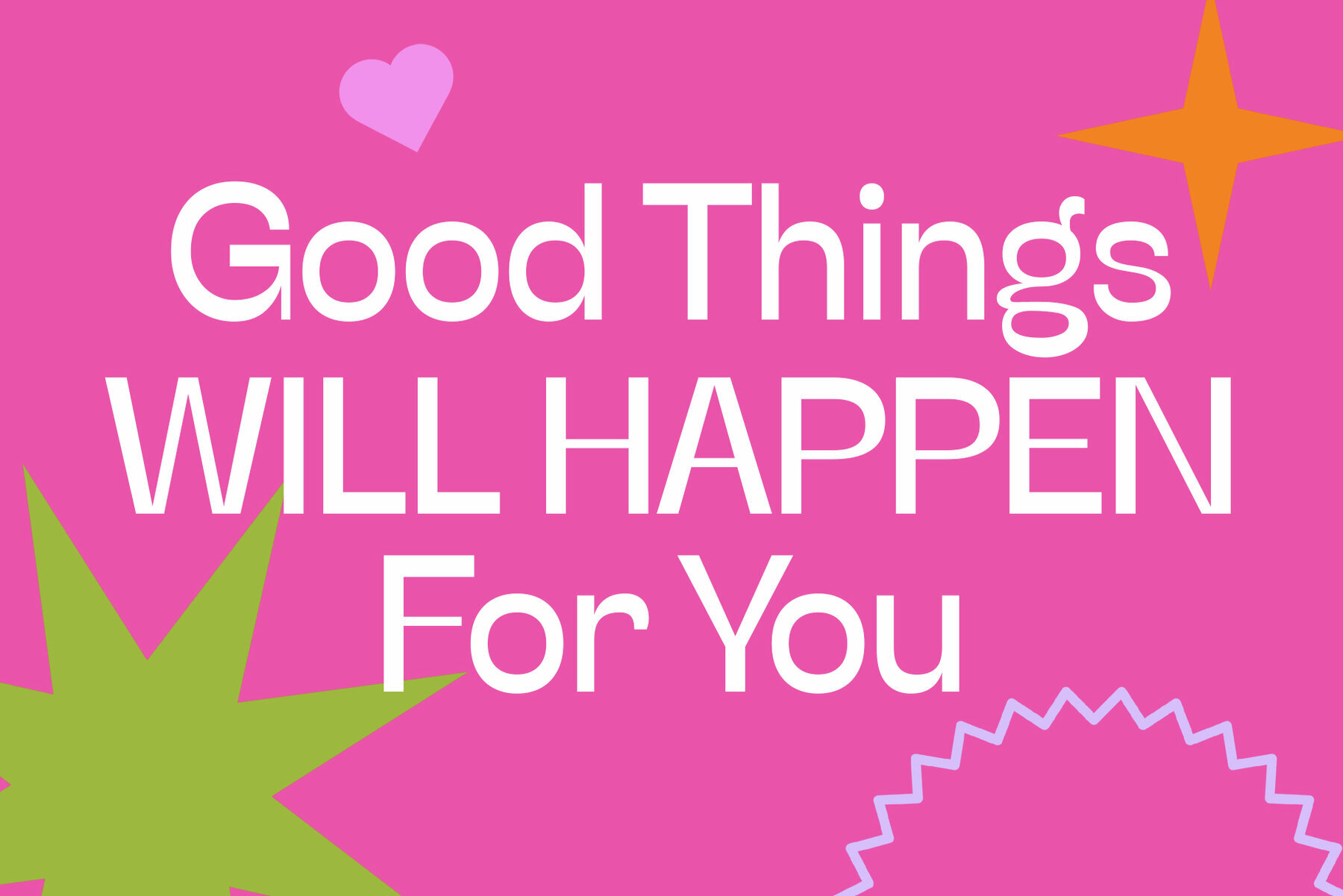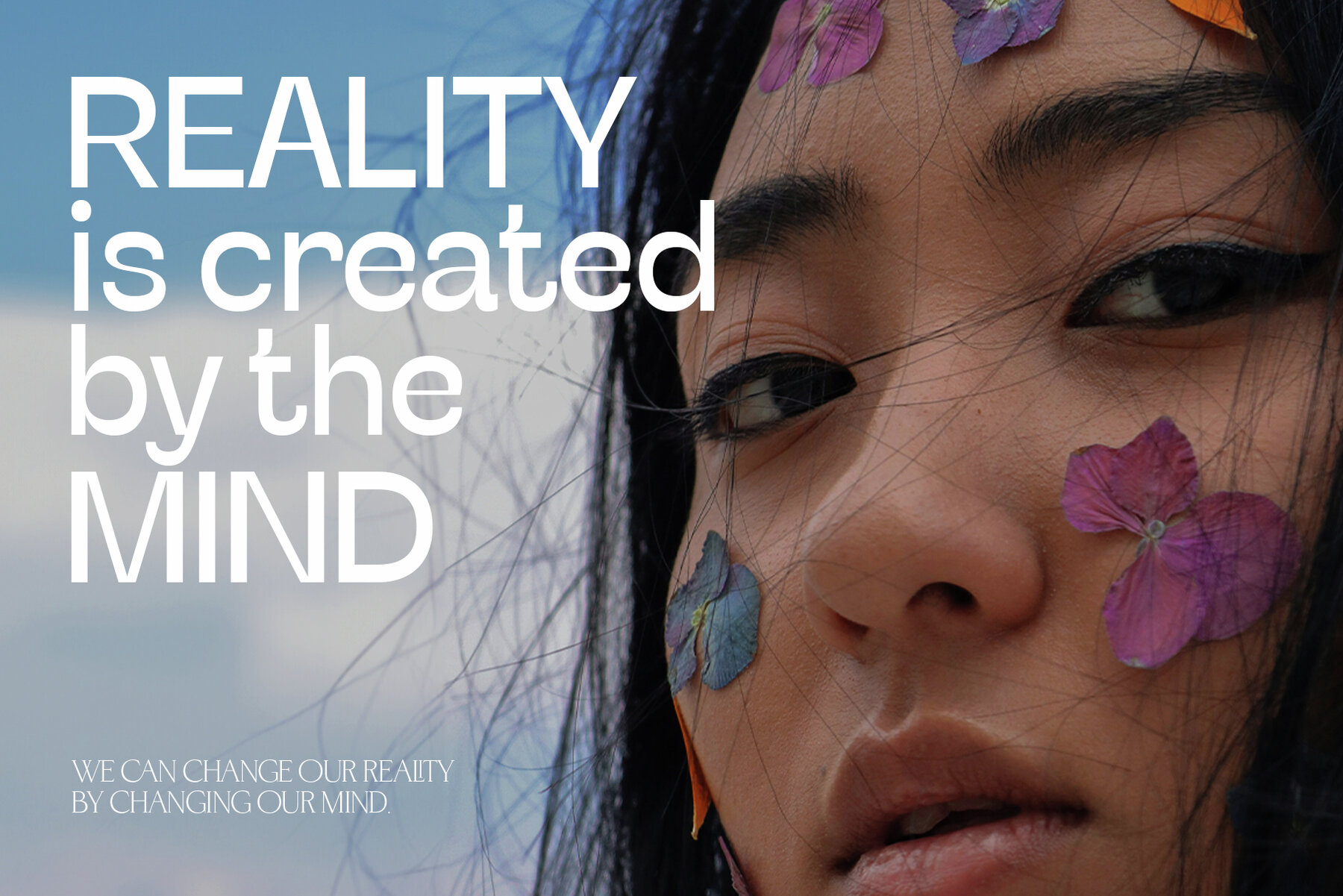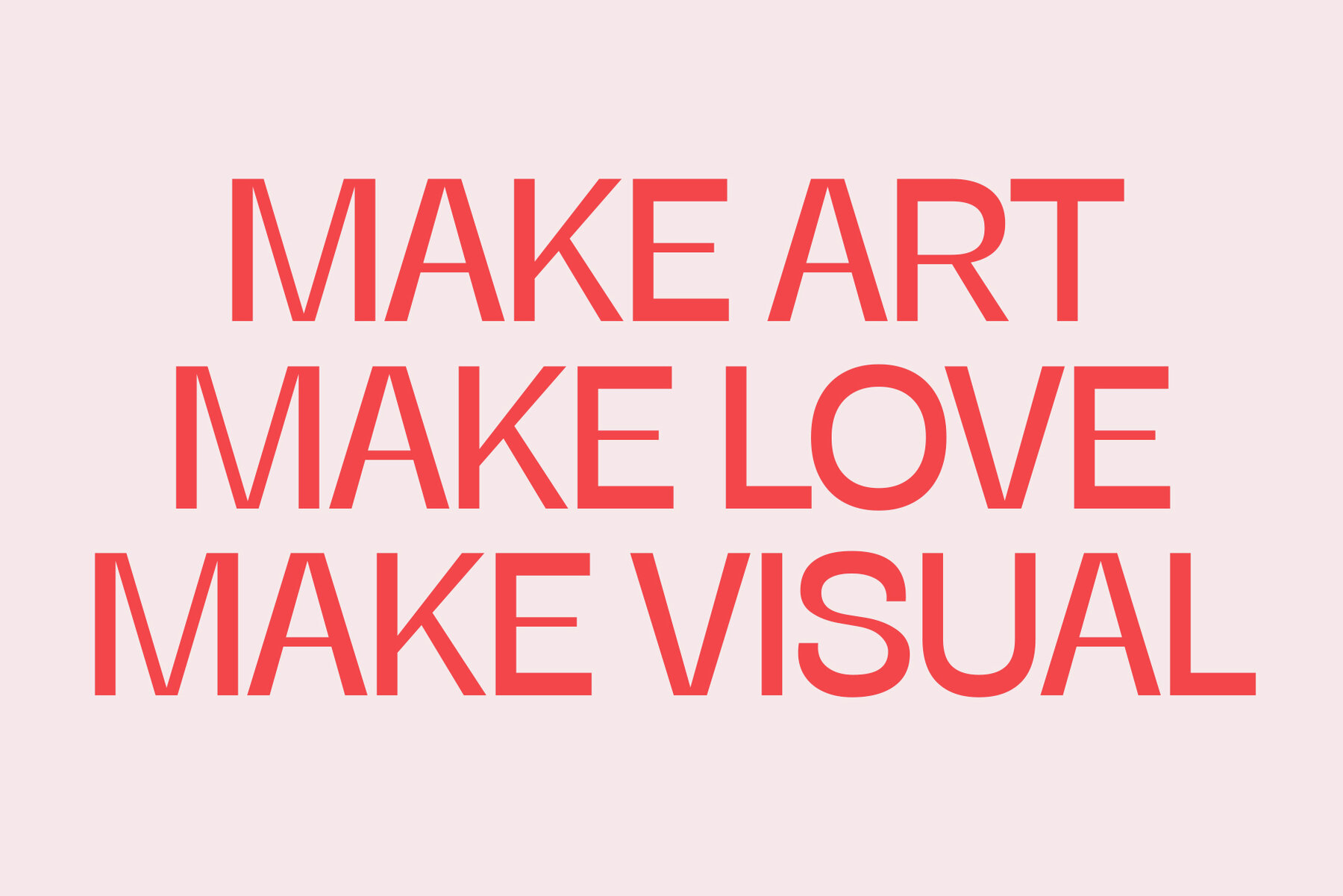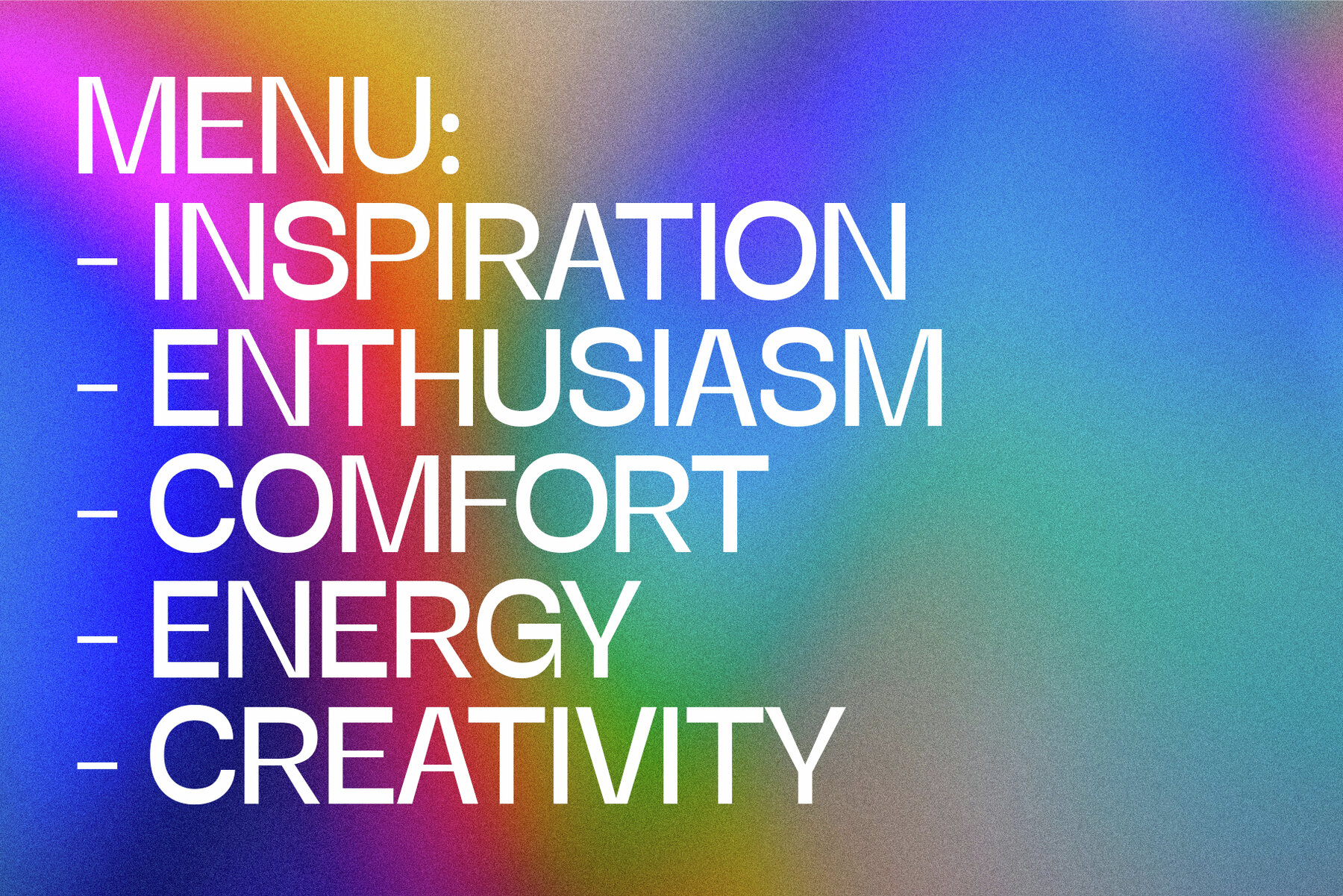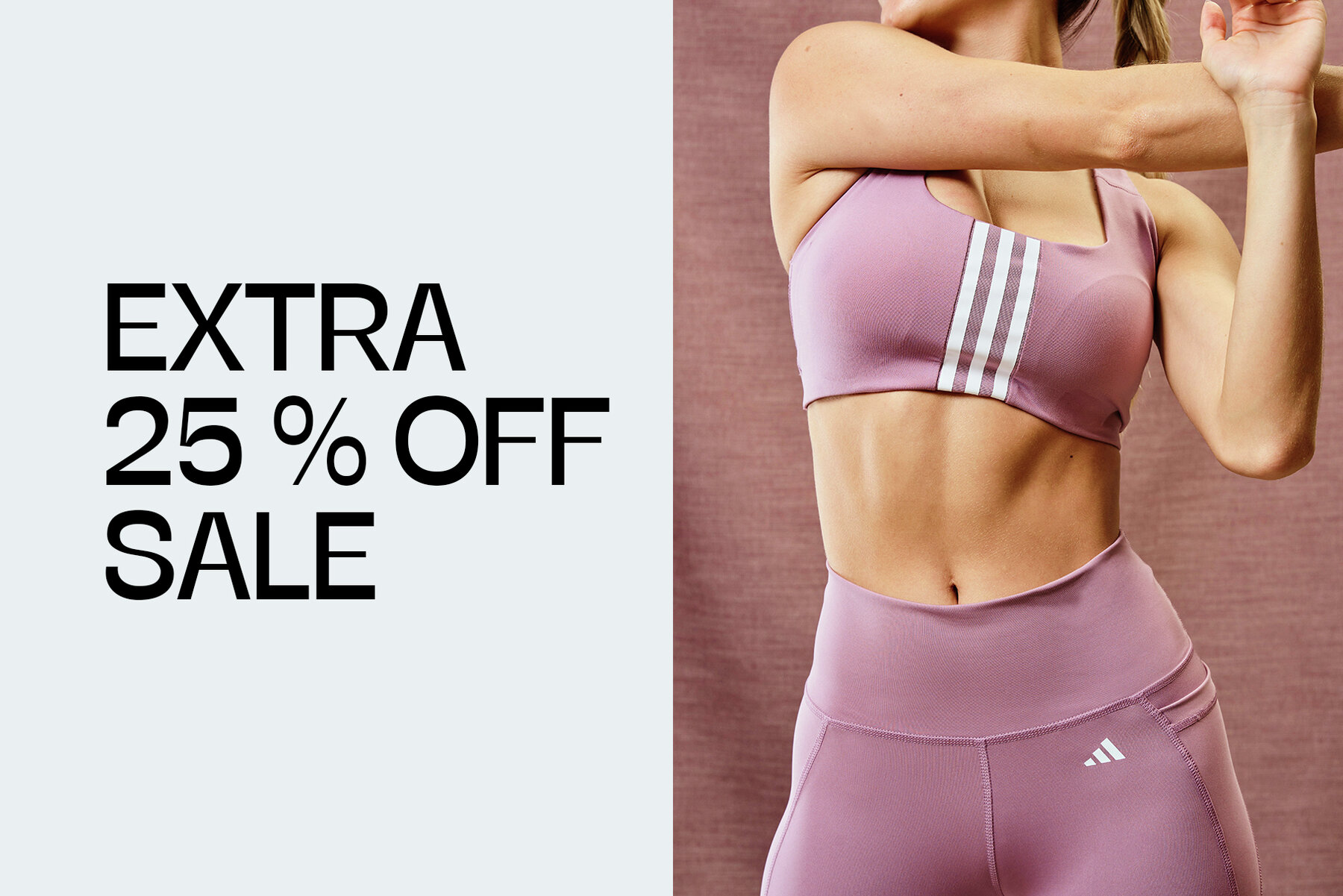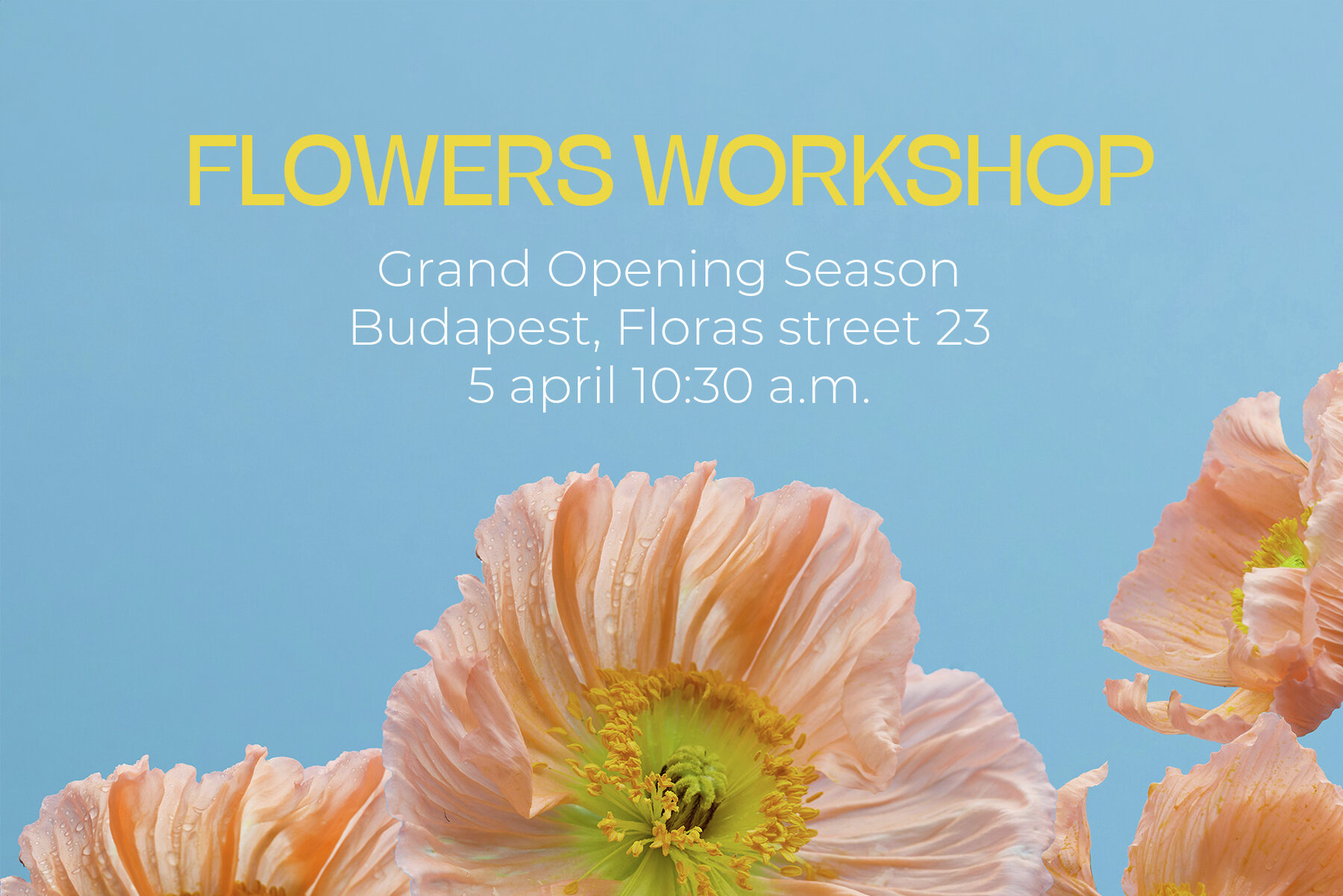
Better Place Font
Better Place - Contrast Serif Font by Daria Cherniackova
This versatile contrast serif font adds elegance and uniqueness to your projects, from logos and invitations to packaging and home decor. Ideal for creating wedding cards, birthday cards, holiday gifts, party decorations, and more. The font supports multiple languages, making it suitable for a worldwide audience.